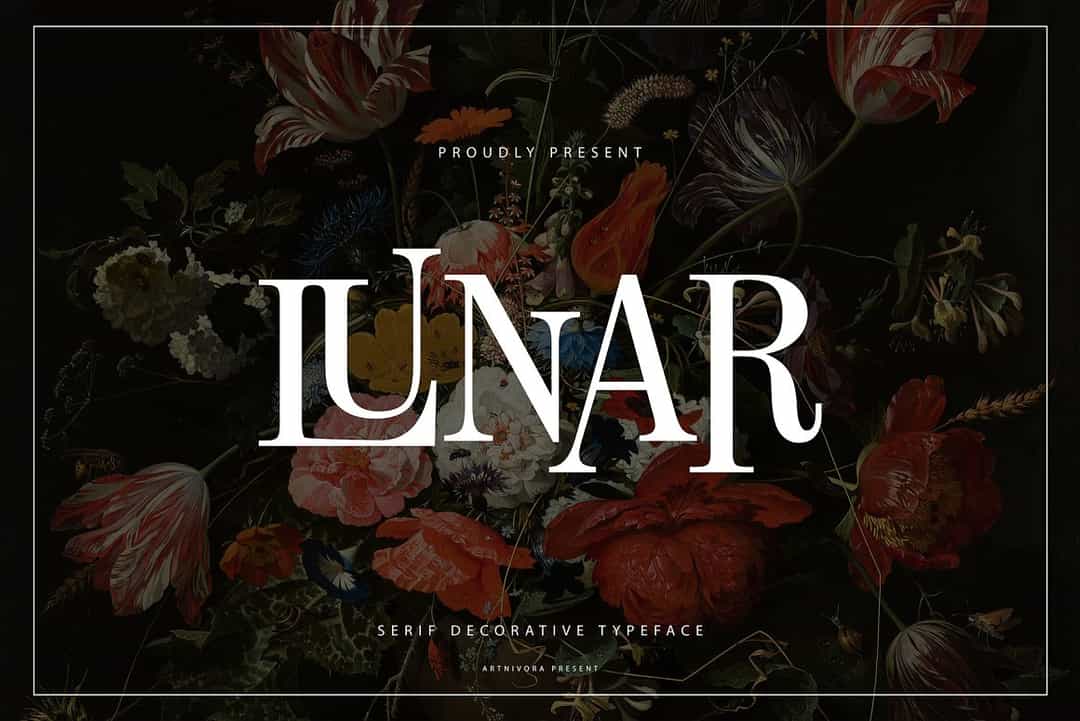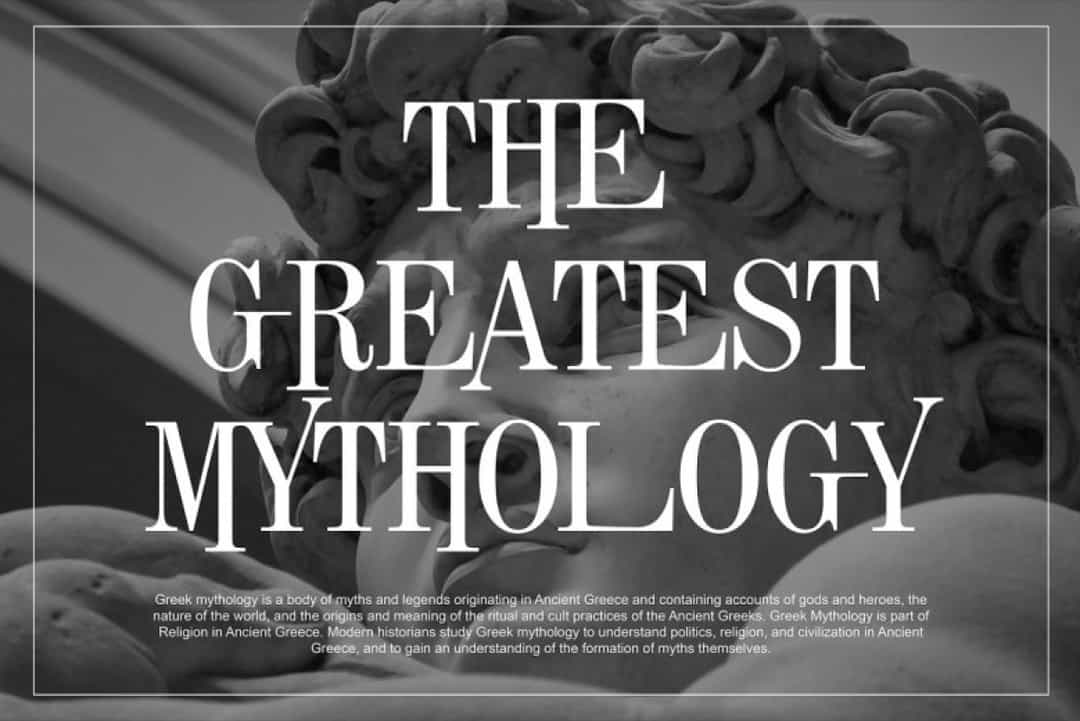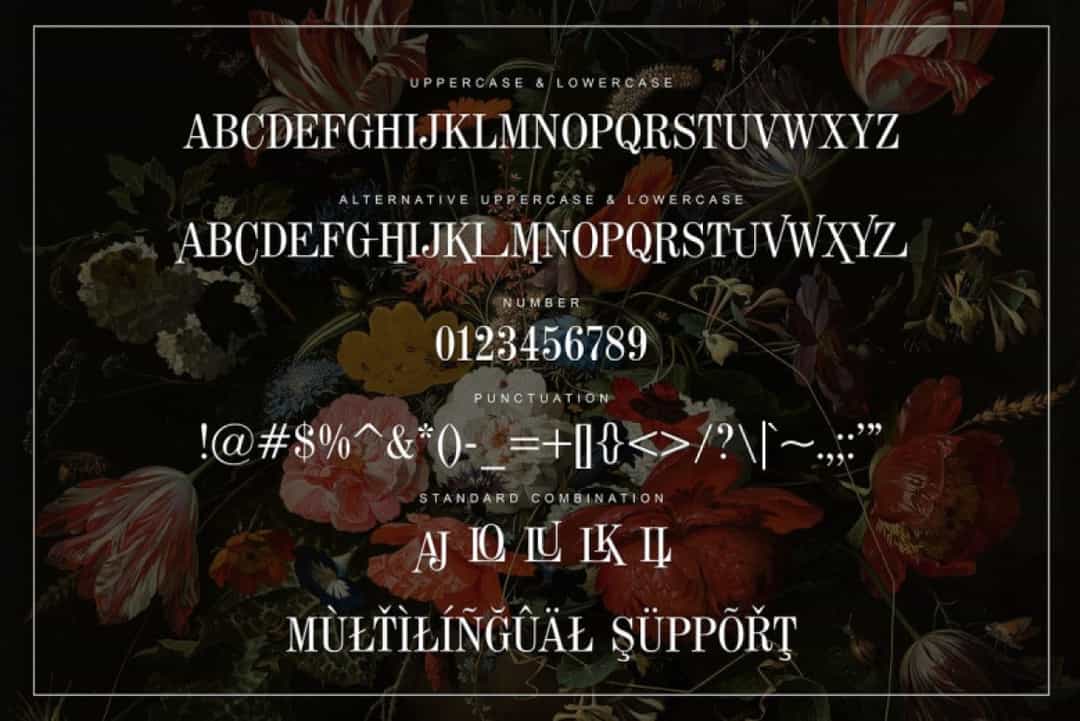
Lunar is a luxurious display serif font that exudes elegance and timeless appeal. Boasting graceful lines and distinguishable serifs, Lunar adds timeless beauty to your creations – be it invitations, headlines or branding material. Lunar’s elegance adds grace that’s both contemporary and adaptable – just what your designs need.